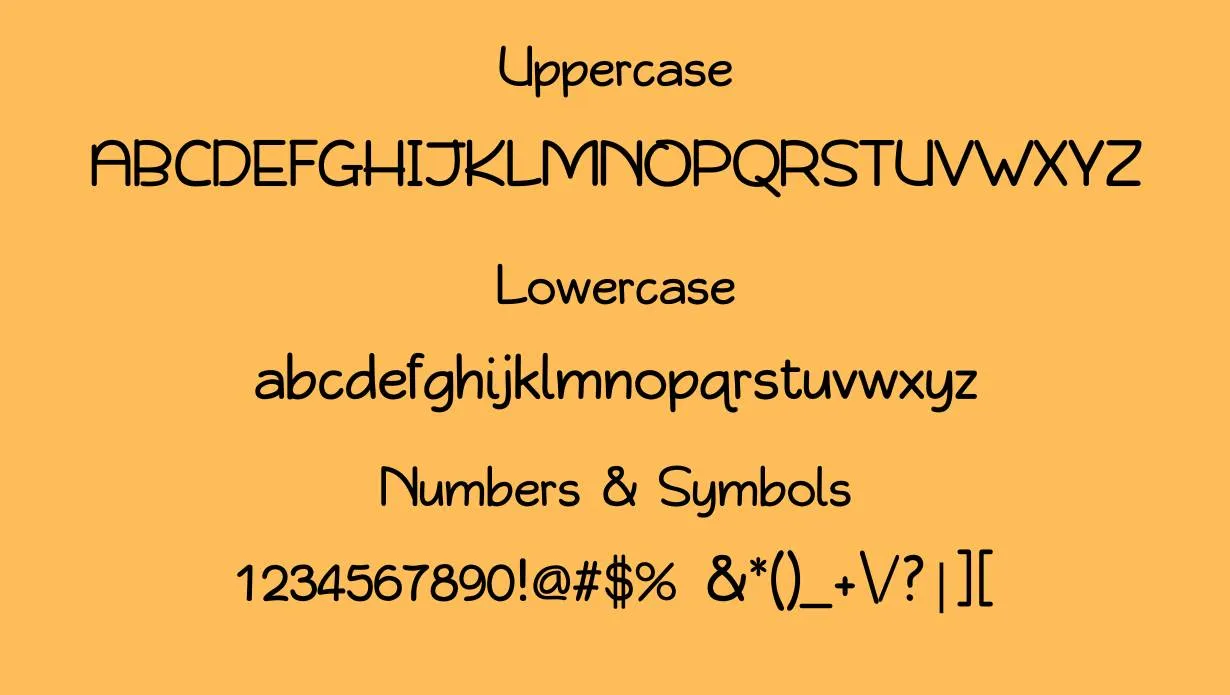
Qarmic Sans Font is a clean and modern typeface with a friendly and approachable design.
It’s suitable for a wide range of design applications, from branding to web design, where a contemporary and welcoming look is desired.
| Name | Qarmic Sans Font |
| Designer | Joanne Taylor |